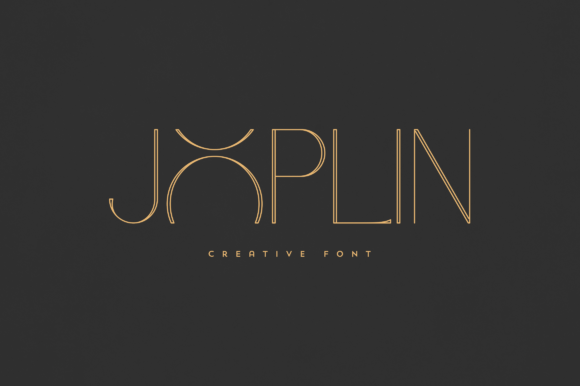
Get ready to elevate your designs with the simply sophisticated Joplin Font – a display font family that is sure to turn heads and leave a lasting impression. Bold, contemporary, and effortlessly chic, Joplin is the ultimate choice for logos, branding, headlines, and any text that demands attention.
Immerse yourself in the captivating charm of Joplin and let your creativity soar. With its striking lines and curves, Joplin will make your words leap off the page with elegance and style. Experience the joy of transforming ordinary text into extraordinary masterpieces, leaving your audience spellbound.
Joplin is not just a font; it's a style statement. Its versatility knows no bounds, making it perfect for branding projects, home-ware designs, product packaging, magazine headers, and more. Its striking presence adds a touch of luxury to any background image, creating visuals that resonate with your audience.
Step into a world of boundless creativity with Joplin. Let your imagination run wild as you craft captivating logos that demand attention, design home-ware items that exude elegance, create product packaging that captivates customers, and produce magazine headers that leave a lasting impression.
With Joplin, you hold the key to unlock a world of endless possibilities. Unleash your inner artist and let your designs shine brighter than ever before. Be bold, be unique, and let Joplin be your creative companion on this extraordinary journey.